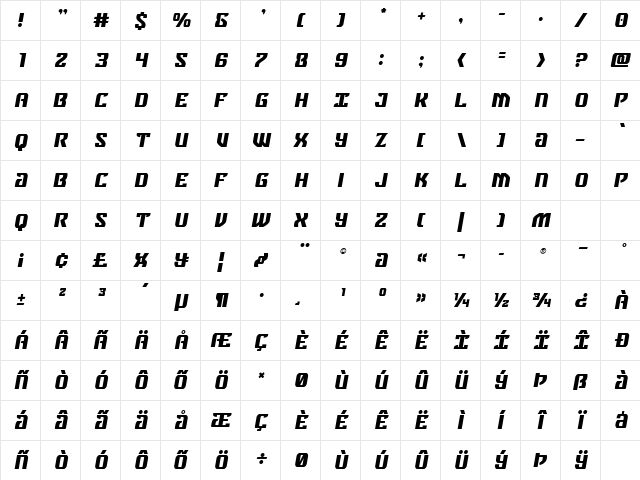
Federal Blue is a composed and adaptable typeface that performs quietly and consistently across a wide range of design contexts. The slanted form adds forward momentum and visual energy.